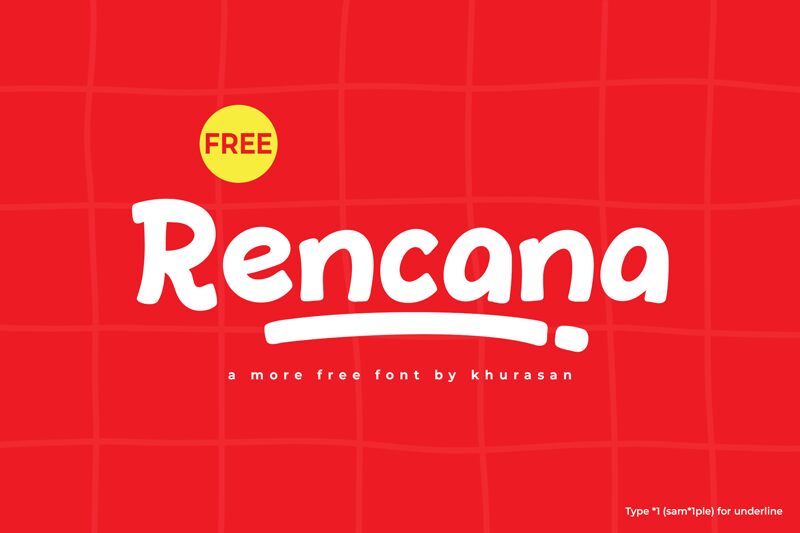
Rencana font family by Khurasan™ consists of 2 font styles that follow a cheerful and cartoon-like design. Its letters are rounded, slightly irregular, and contemporary; they emit a friendly approachable vibe not only for kids and teens but also in professional projects targeted toward adults. Enjoy this free font family in all your upcoming and future projects.
Rencana is characterized by a playful look that immediately reminds of classic cartoons. This means it’s perfect in almost every modern application that revolves around entertaining, informing, or delivering a message whether it’s branding, packaging, or otherwise.